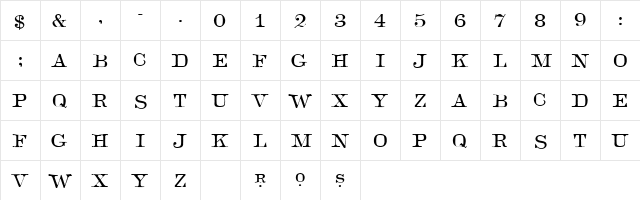
Copperplate Roman HPLHS
Design Context for Copperplate Roman Typeface
Copperplate Roman takes a measured approach to typography — its balanced proportions and neutral character make it a reliable workhorse for both digital and print work.